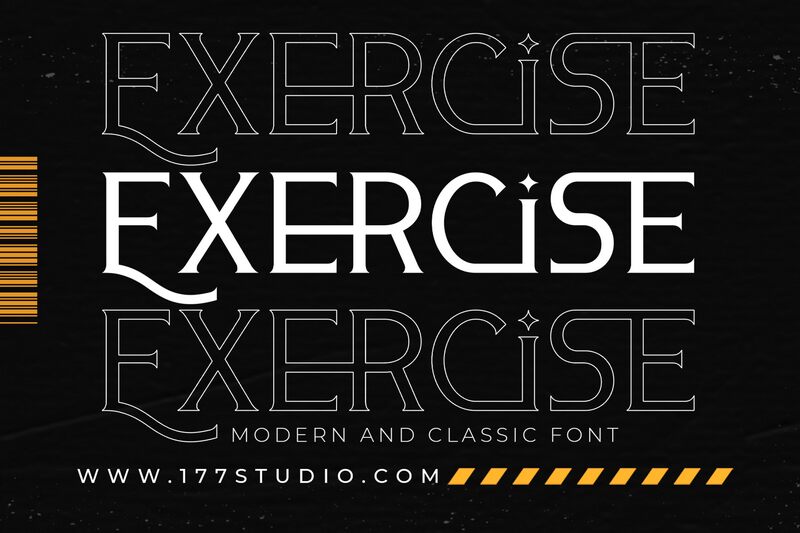
Exercise Regular
Exercise is a stunning display font created by 177Studio that exudes retro vibes. This semi-light font boasts a unique and eye-catching design that is perfect for any project that requires a touch of vintage flair. Whether you're working on branding, packaging, posters, or even social media graphics, Exercise will make your message pop with its distinct style and playful charm. Its wide range of weights and widths also makes it incredibly versatile, allowing you to add emphasis or subtlety where needed. With Exercise, your designs are sure to stand out from the crowd and leave a lasting impression on your audience.